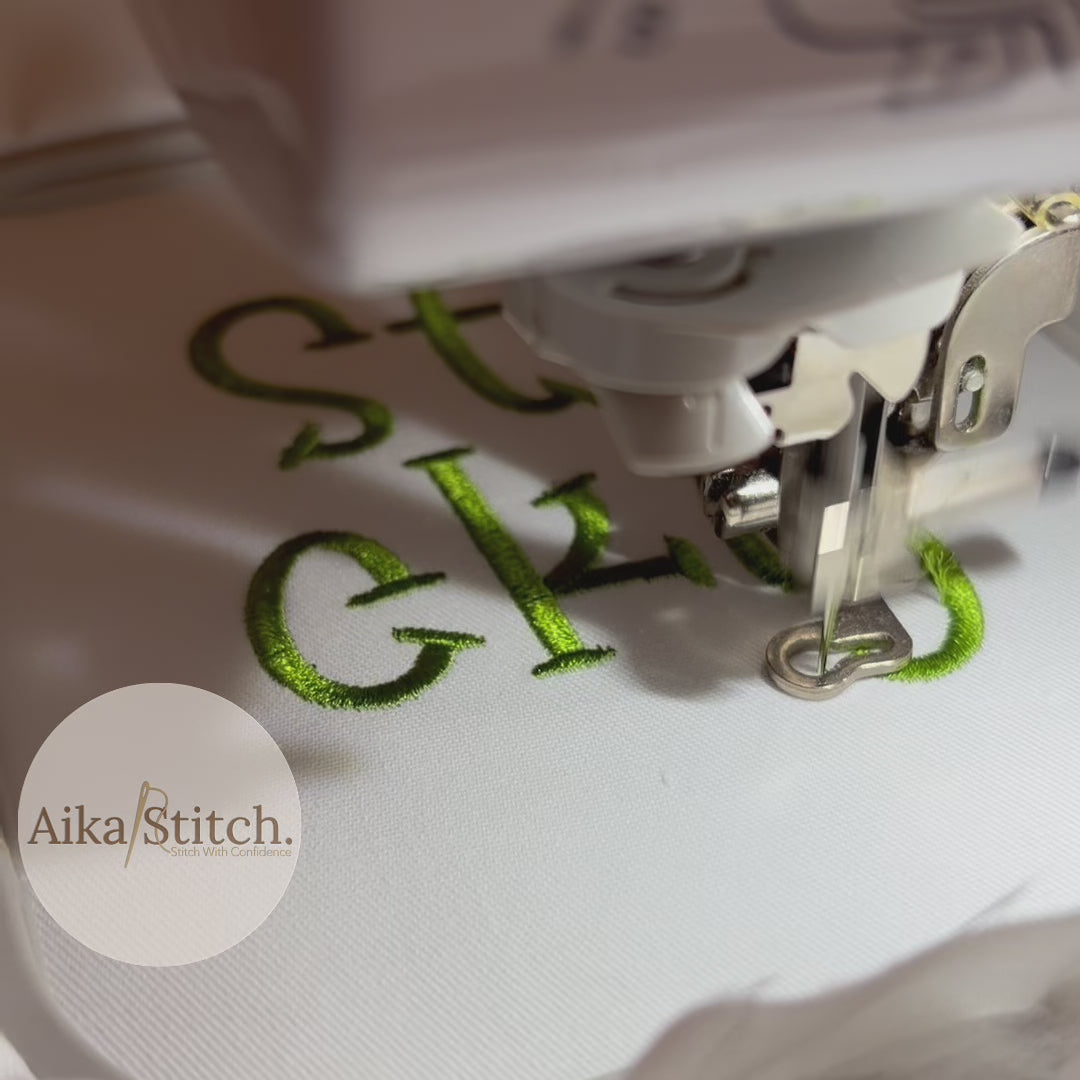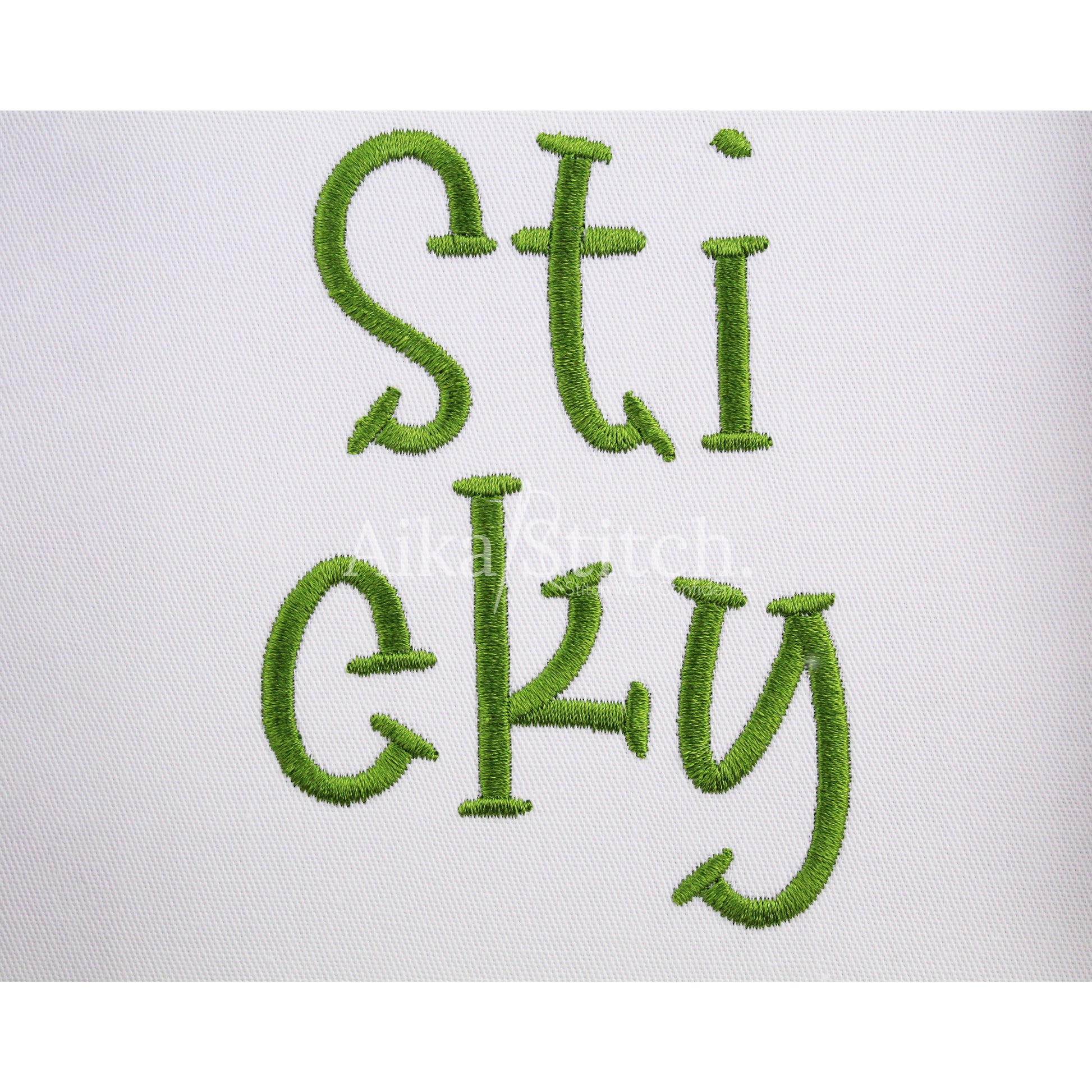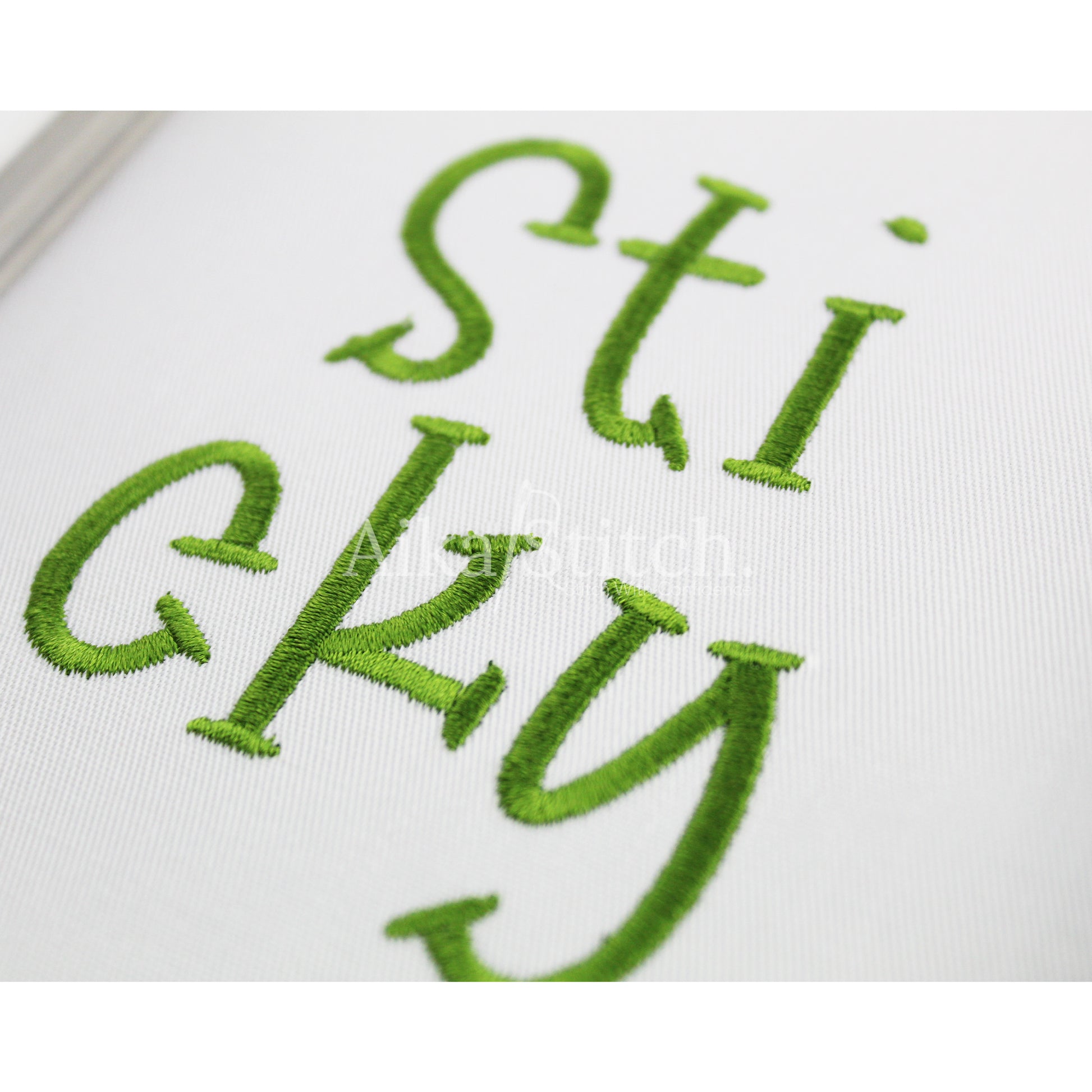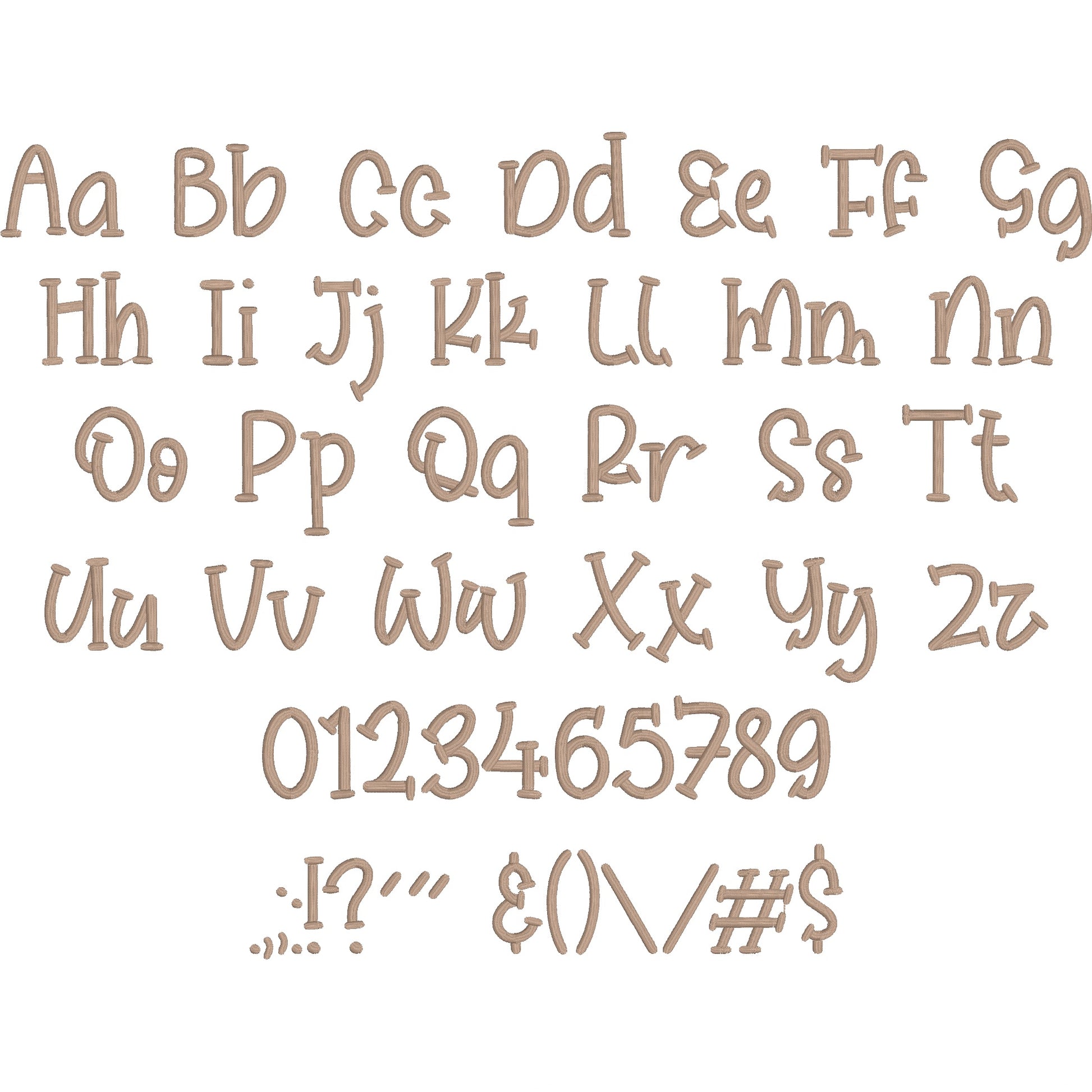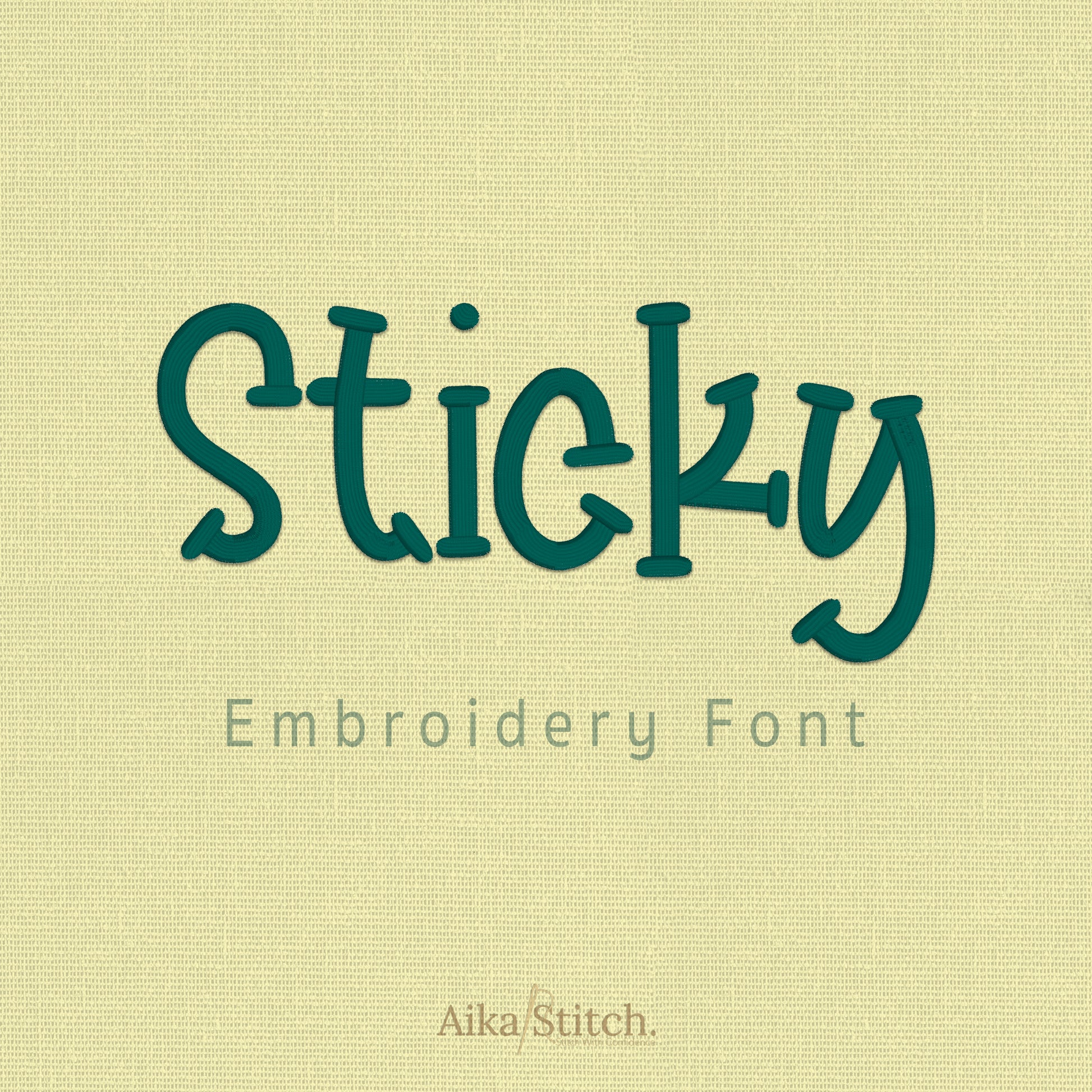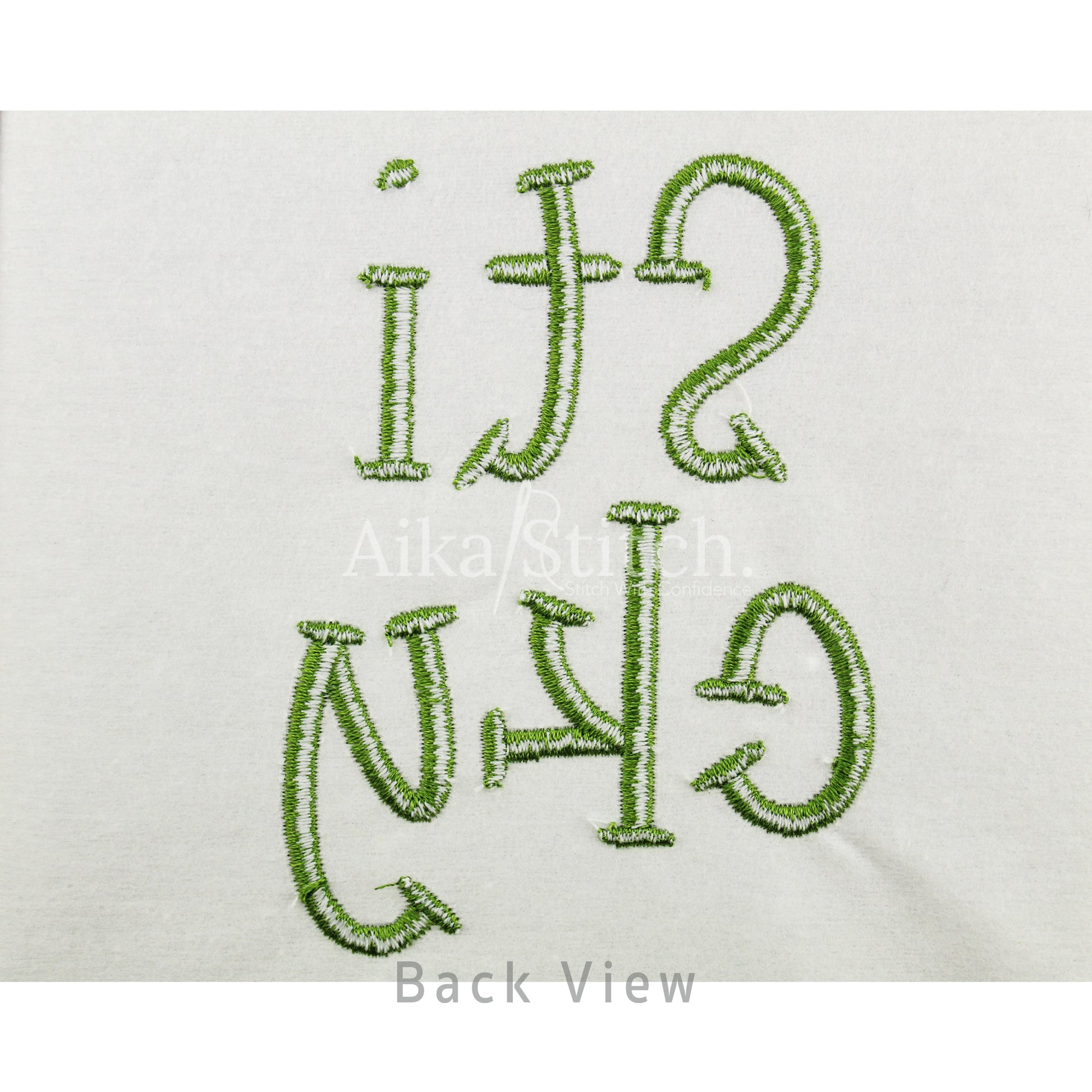
Sticky Slab Serif Playful Embroidery Font | Native BX Included
Sticky is a Fun Playful machine embroidery font featuring beautiful satin stitch lettering. Perfect for shirts, towels, hats, baby gifts, monograms, and small business embroidery projects.